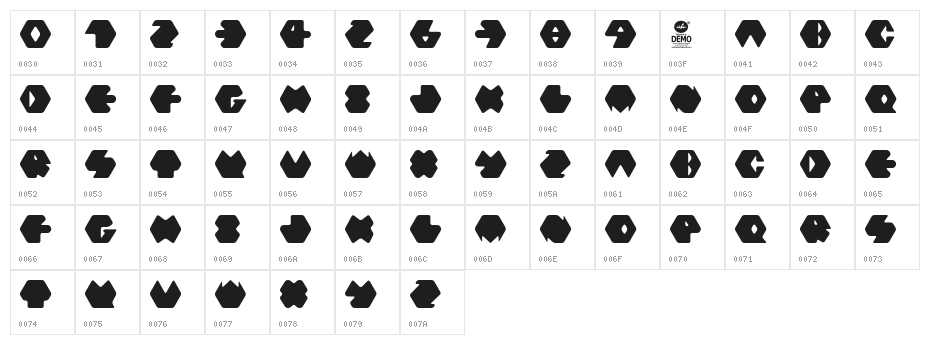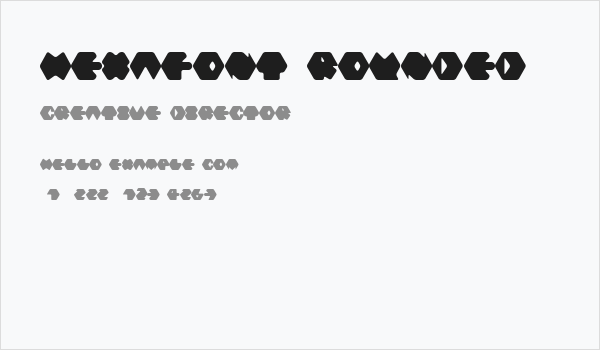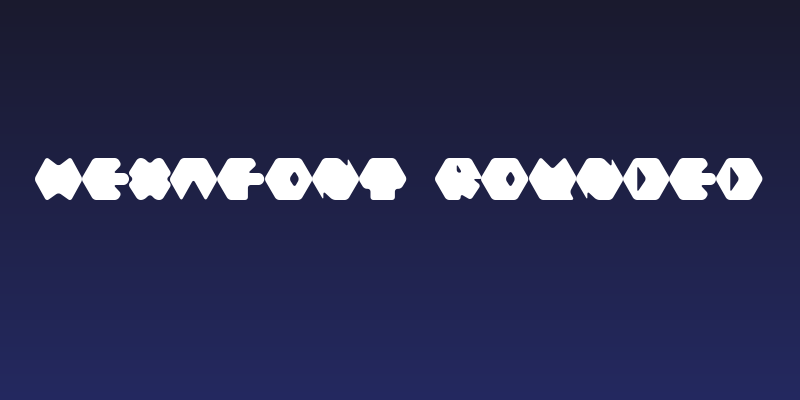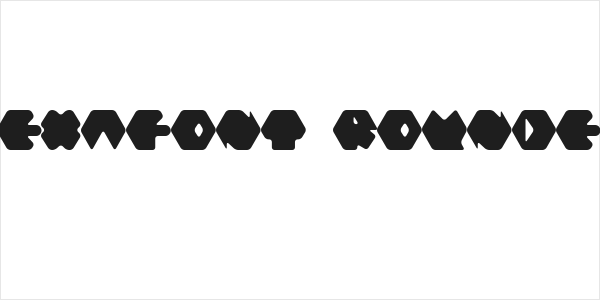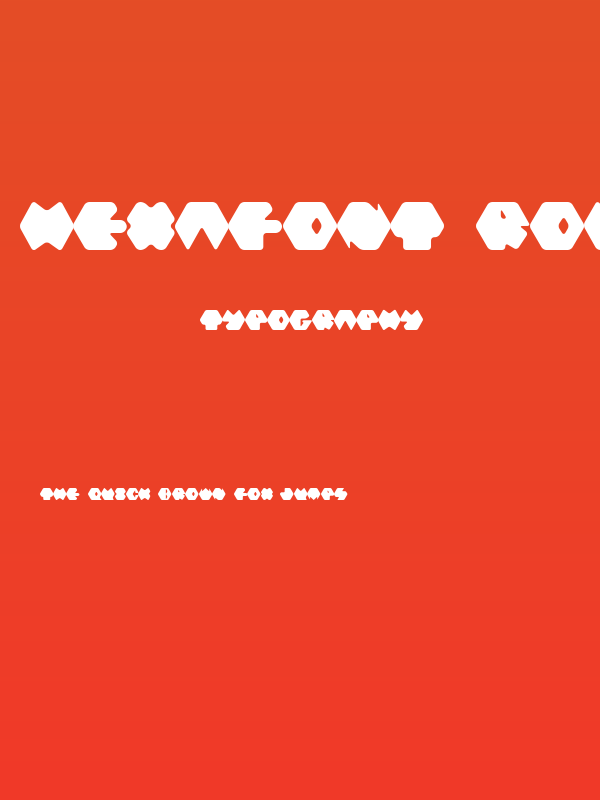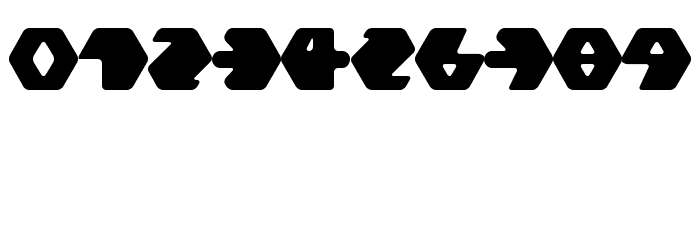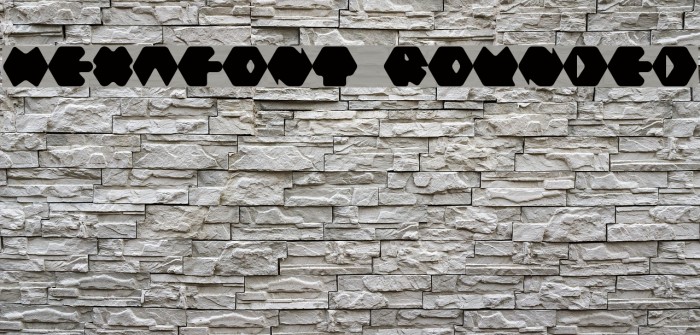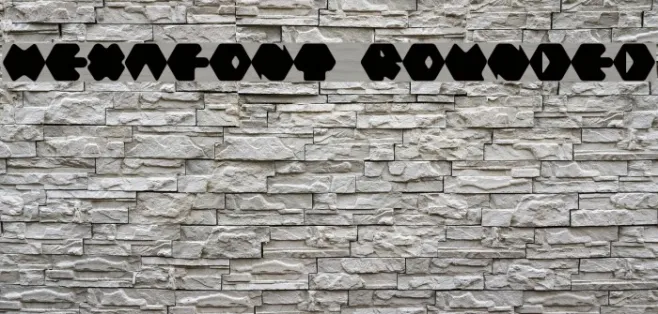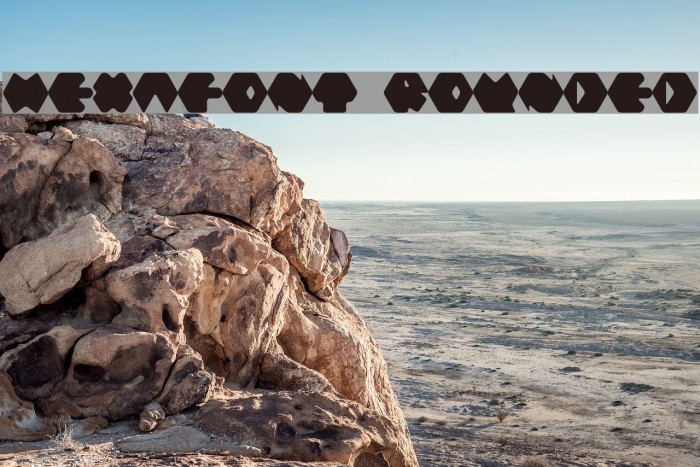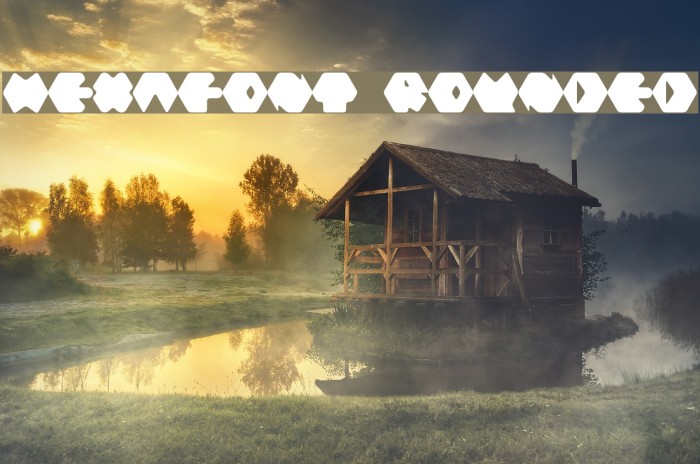
Hexafont Rounded Font
Hexafont Rounded Description
This font features a bold, geometric style with a distinctly modern and futuristic aesthetic. Each character is constructed with hexagonal shapes, giving it a unique and eye-catching appearance. The edges are rounded, softening the overall look while maintaining a strong visual impact. This design choice creates a sense of uniformity and cohesion across all characters, making it ideal for projects that require a standout, contemporary typeface. The font's boldness ensures excellent readability, even at smaller sizes, while the geometric forms add a layer of sophistication and style.
| Proposed Projects | Ideal for branding, logos, headlines, and any design project that requires a modern and distinctive typeface. |